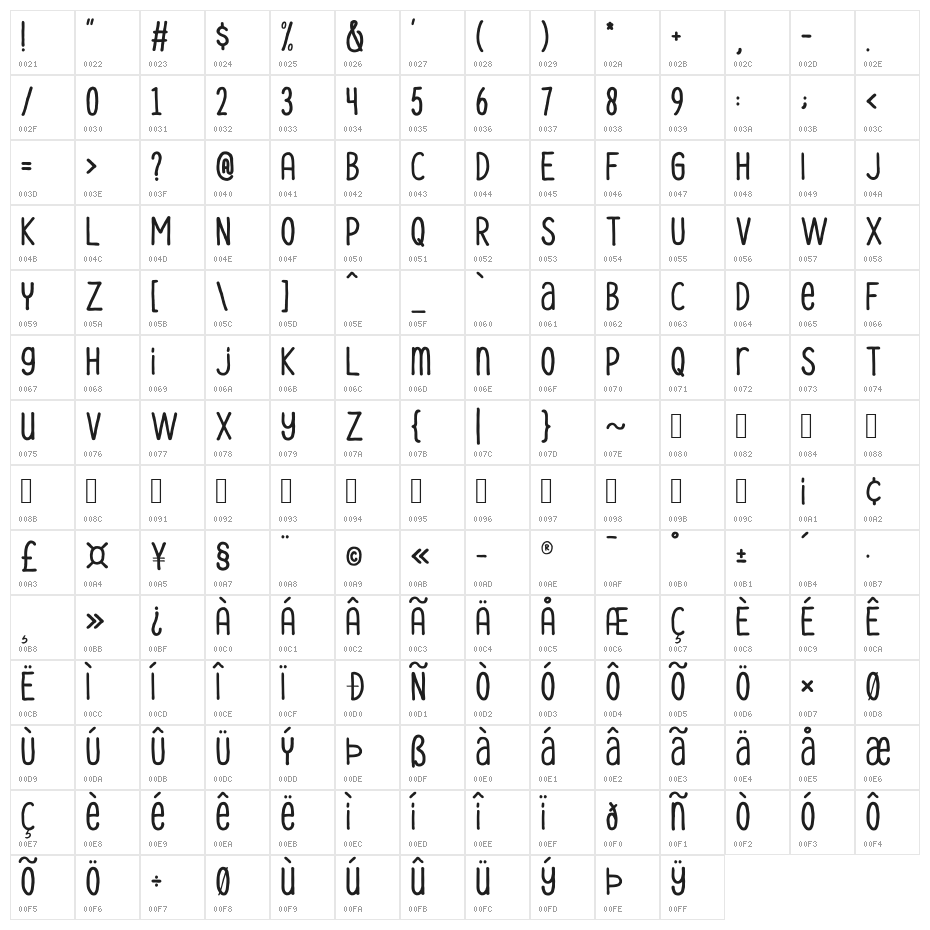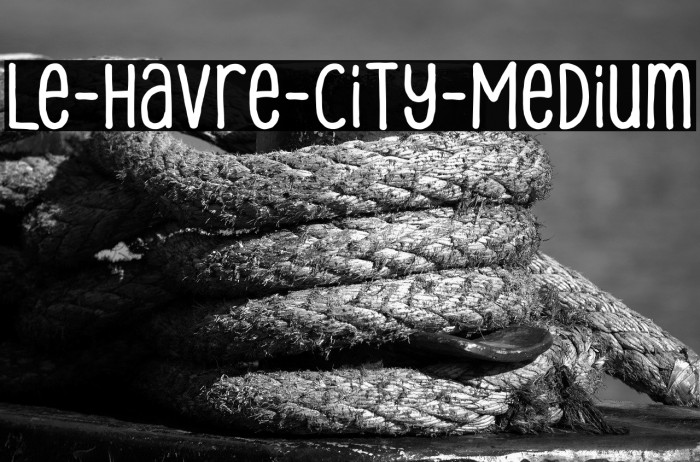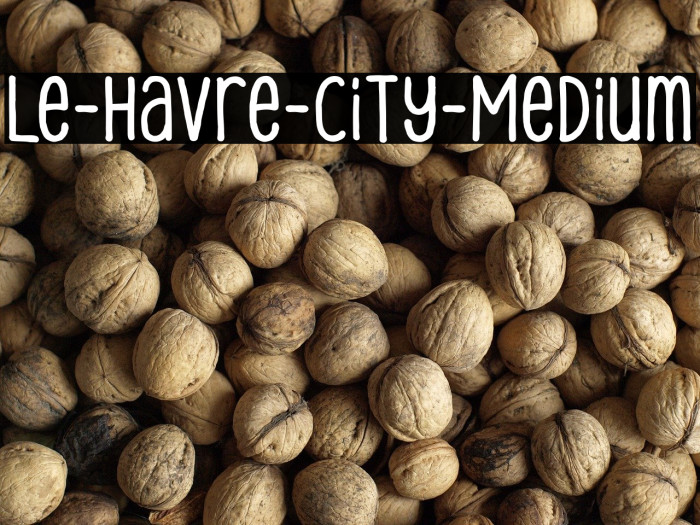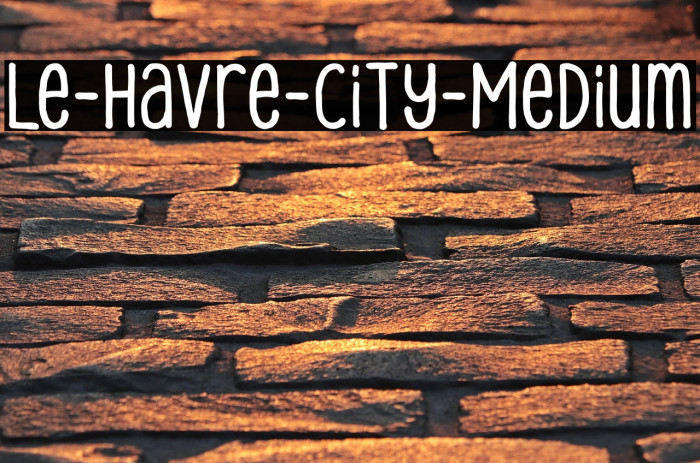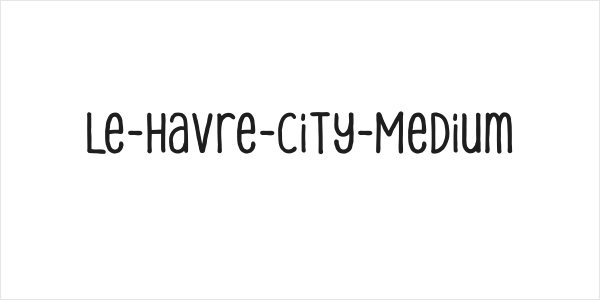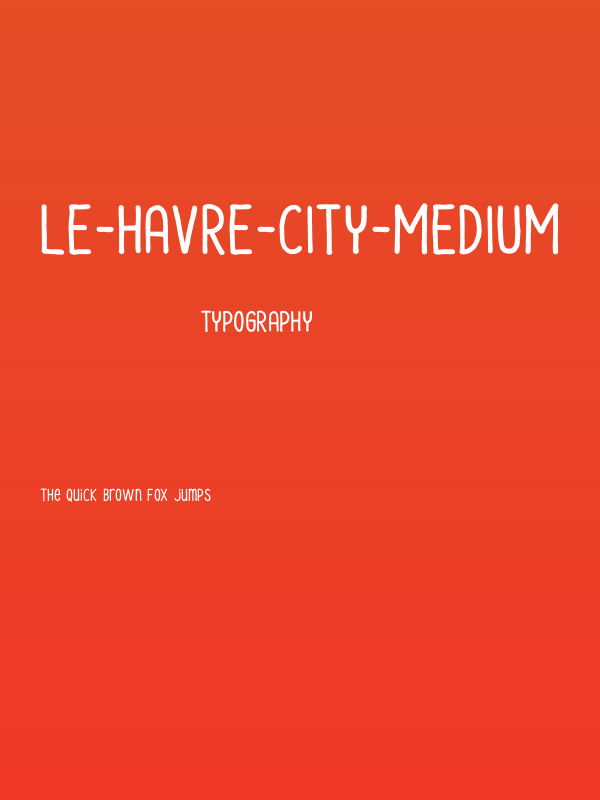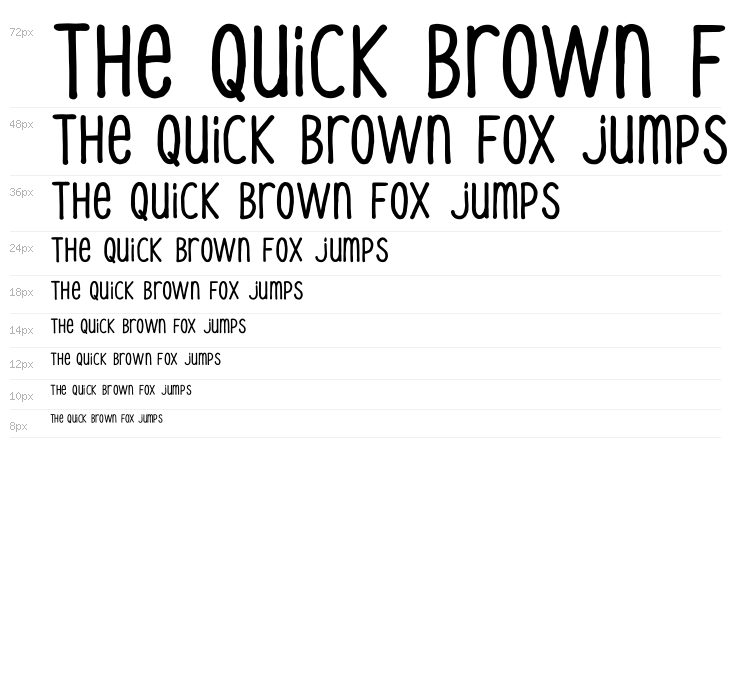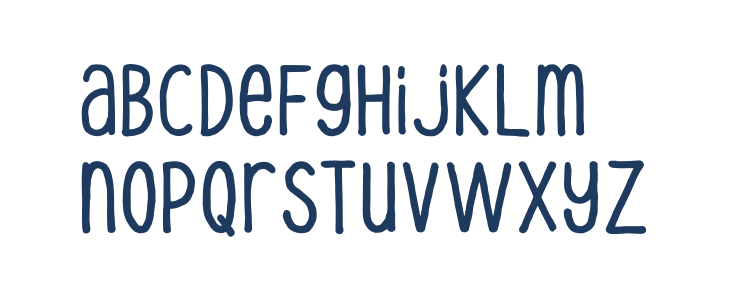
Le-Havre-City-Medium Font
Le-Havre-City-Medium Description
This font features a playful and casual handwritten style with rounded edges and a slightly irregular baseline, giving it a friendly and approachable appearance. The letters are tall and narrow, with consistent stroke widths that maintain a uniform look across both uppercase and lowercase characters. The numbers and special characters follow the same style, ensuring a cohesive design throughout. The font's simplicity and readability make it versatile for various design applications, while its unique character adds a touch of personality.
| Proposed Projects | Ideal for children's books, casual branding, greeting cards, and playful social media graphics. |